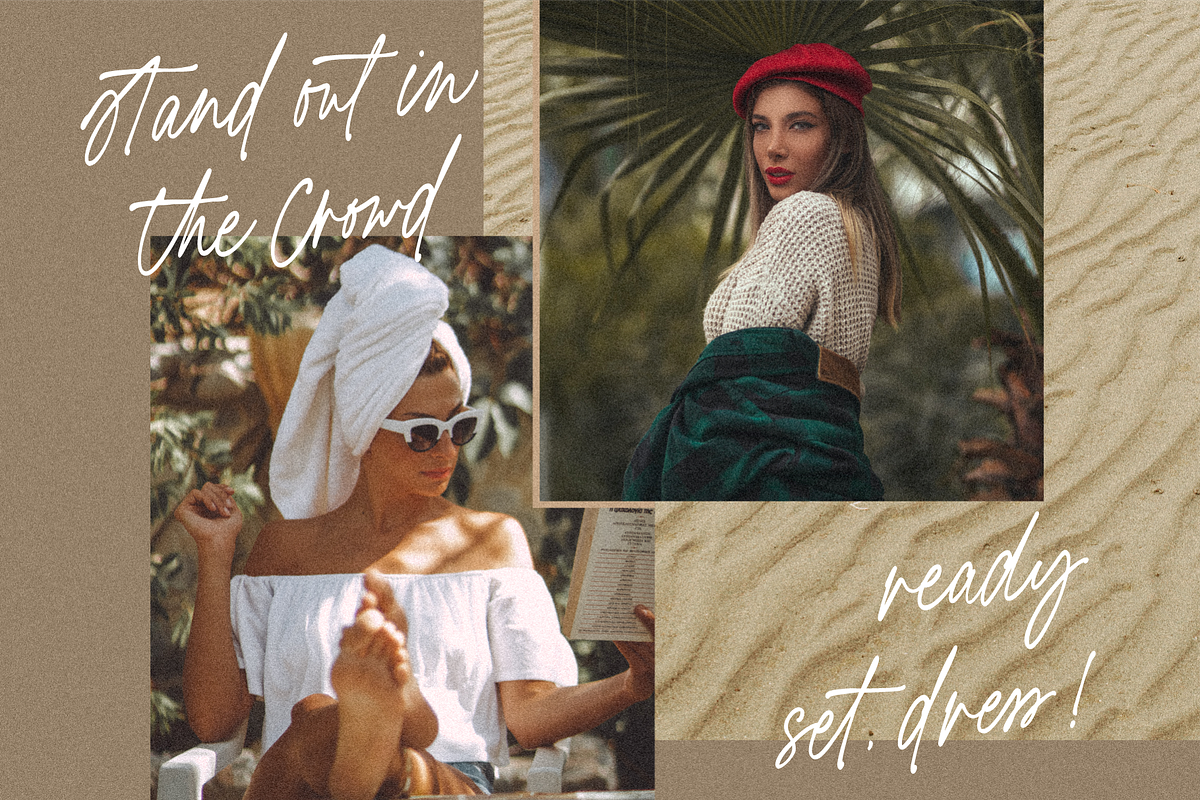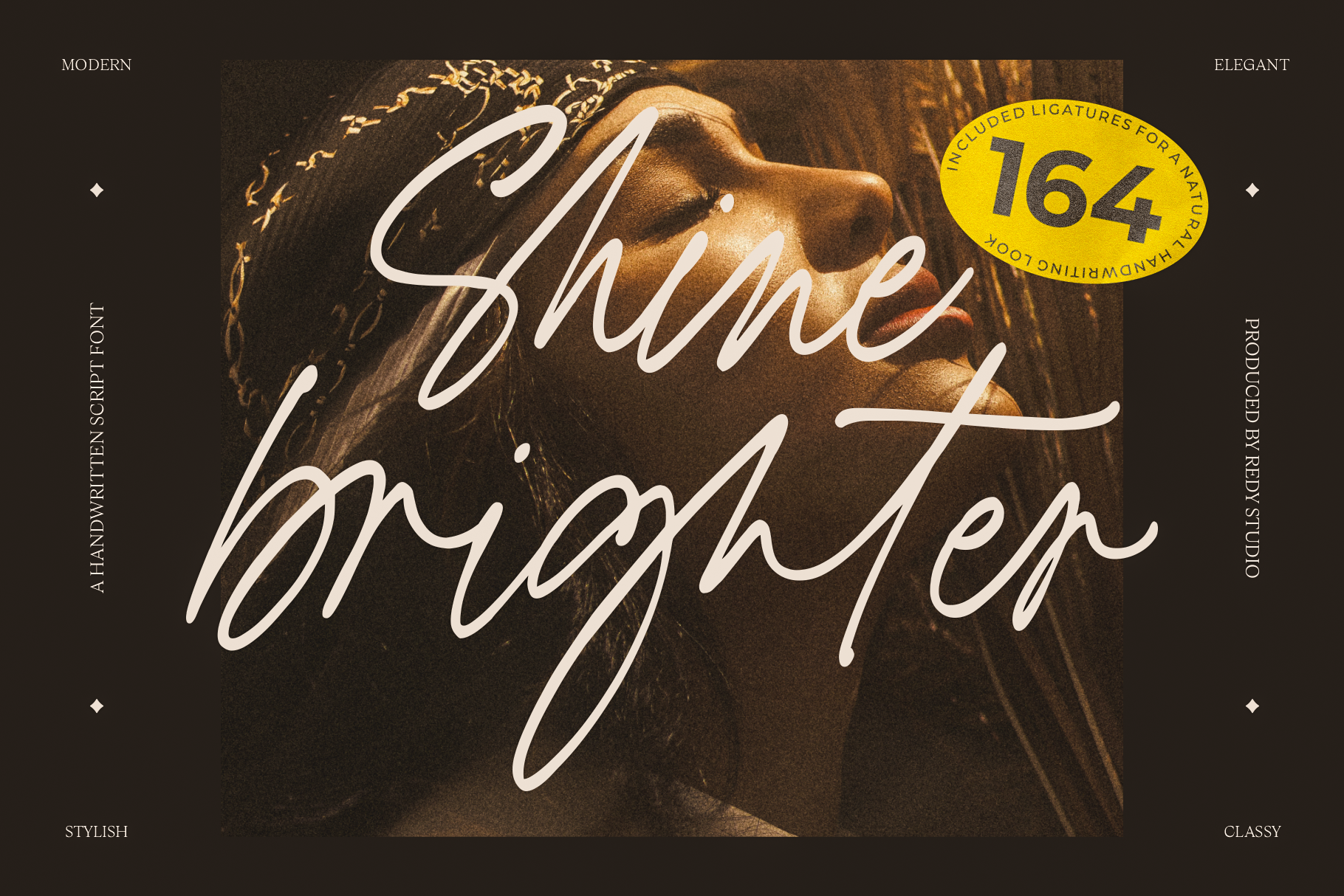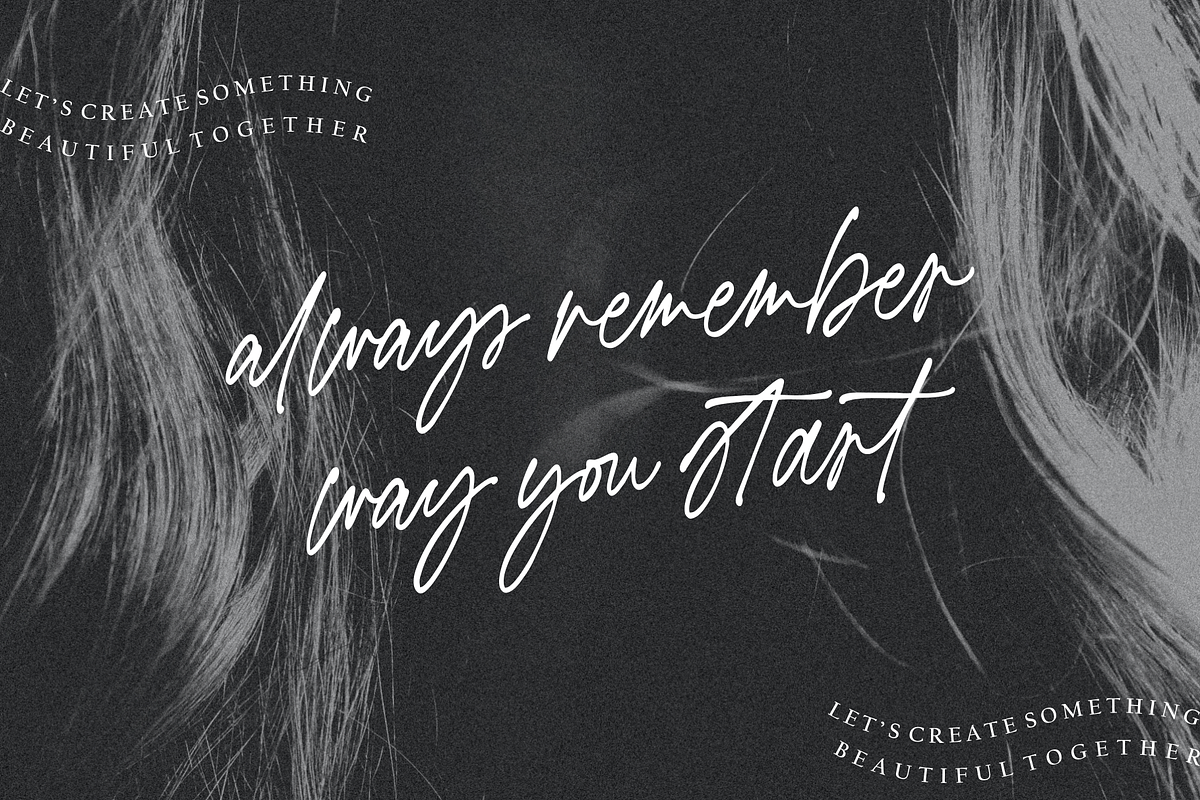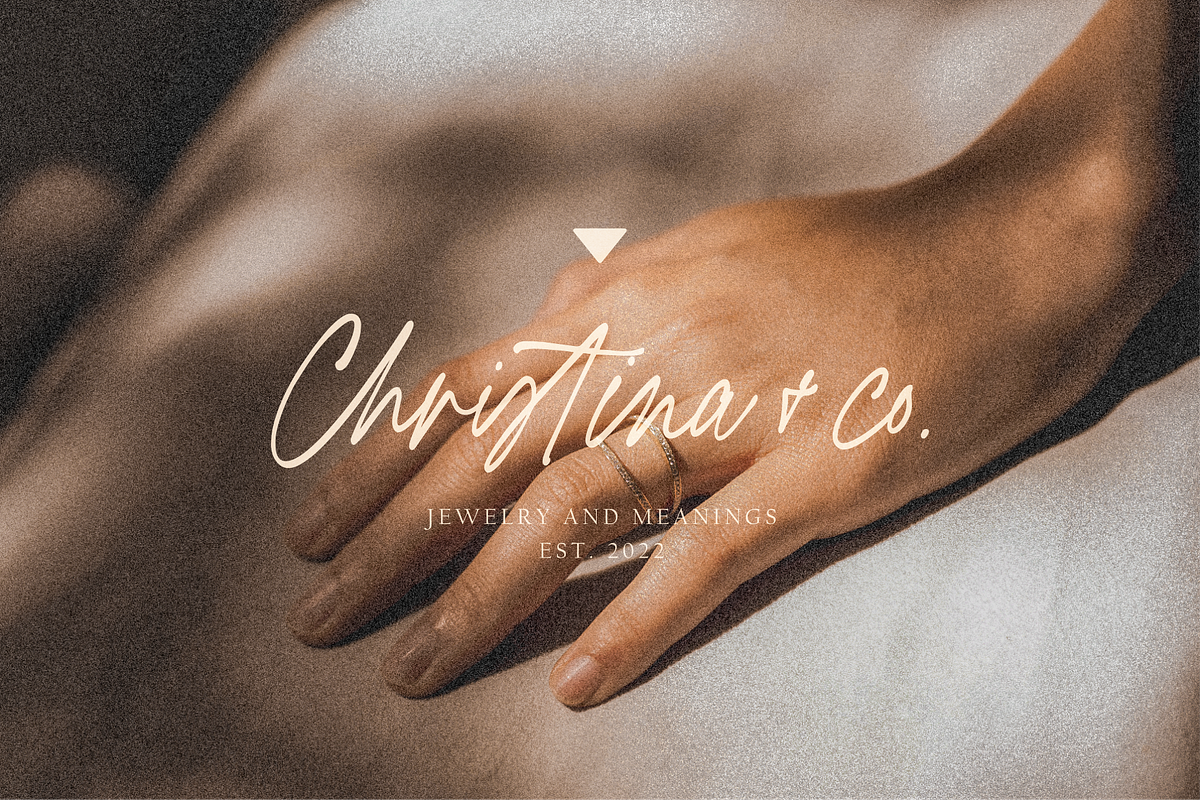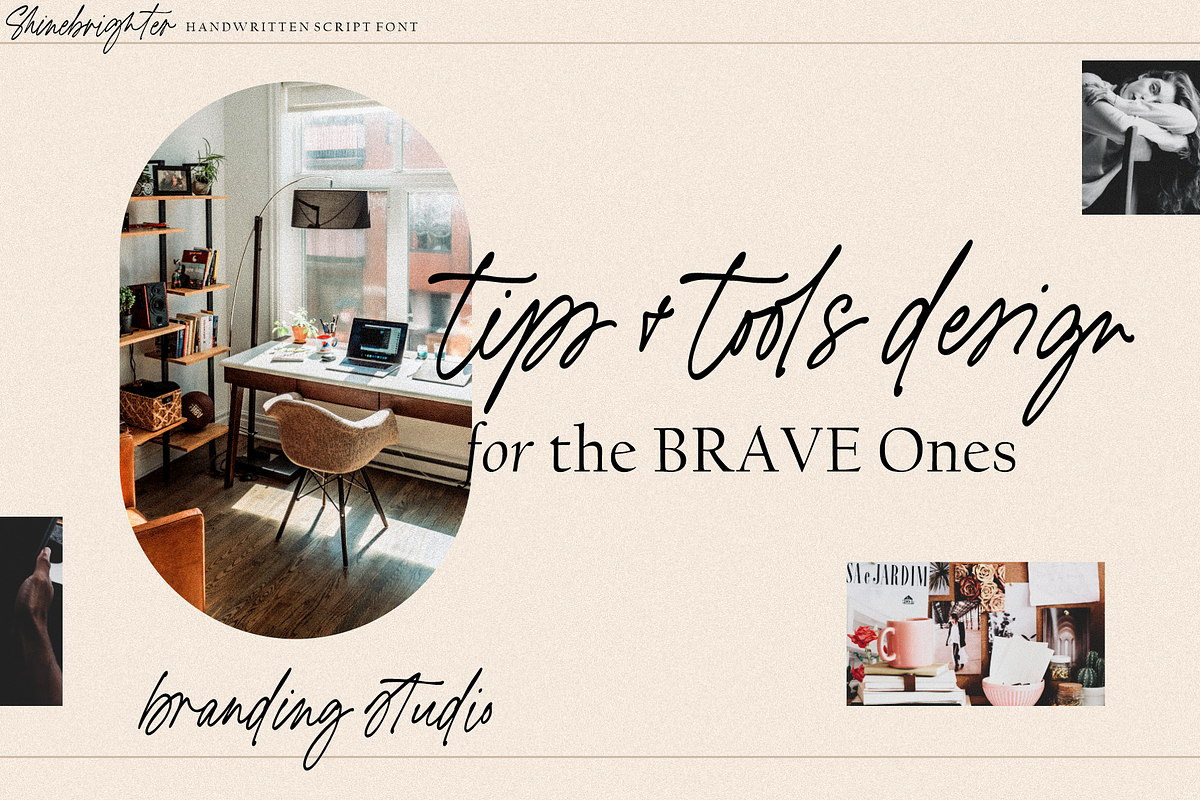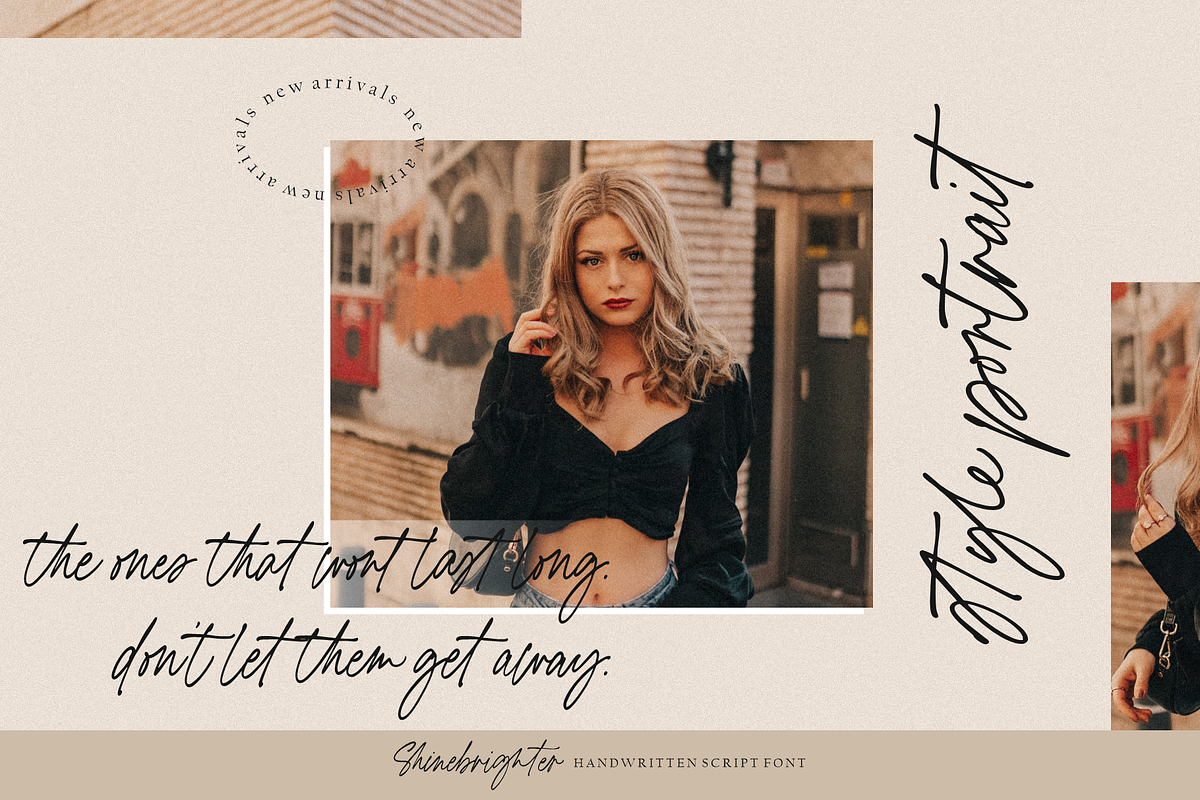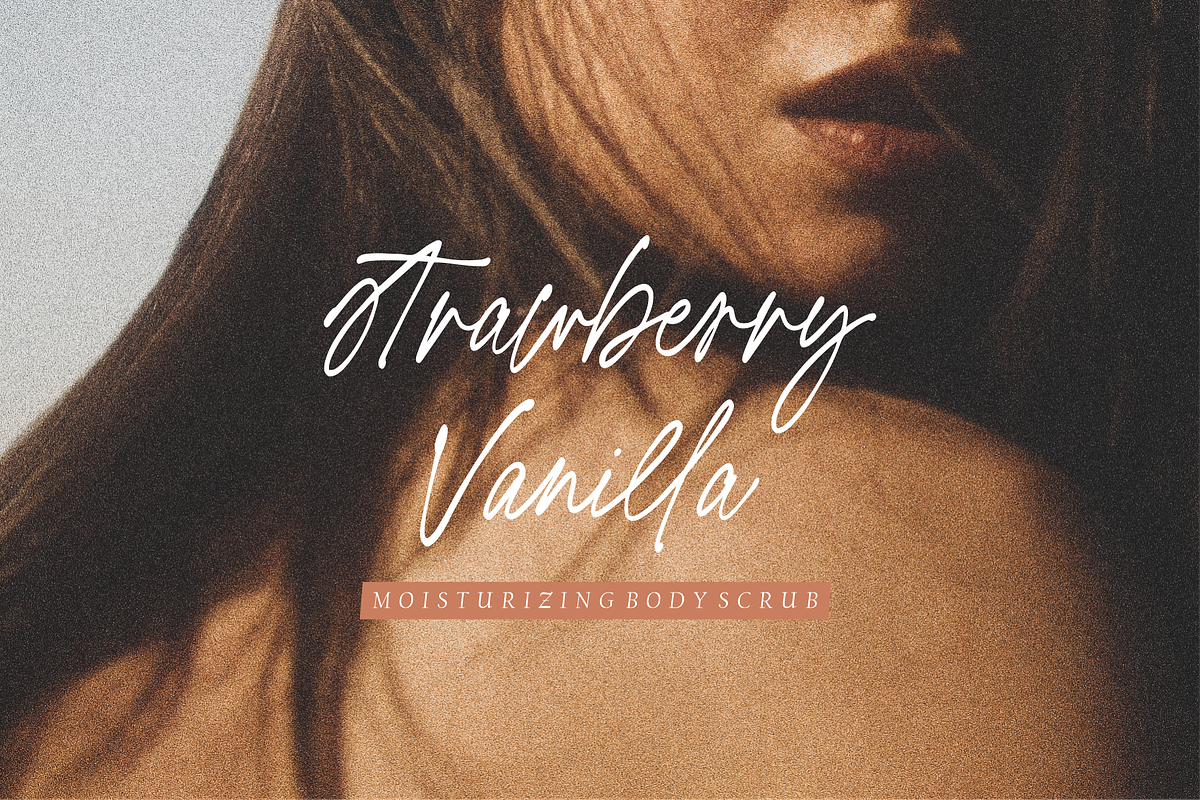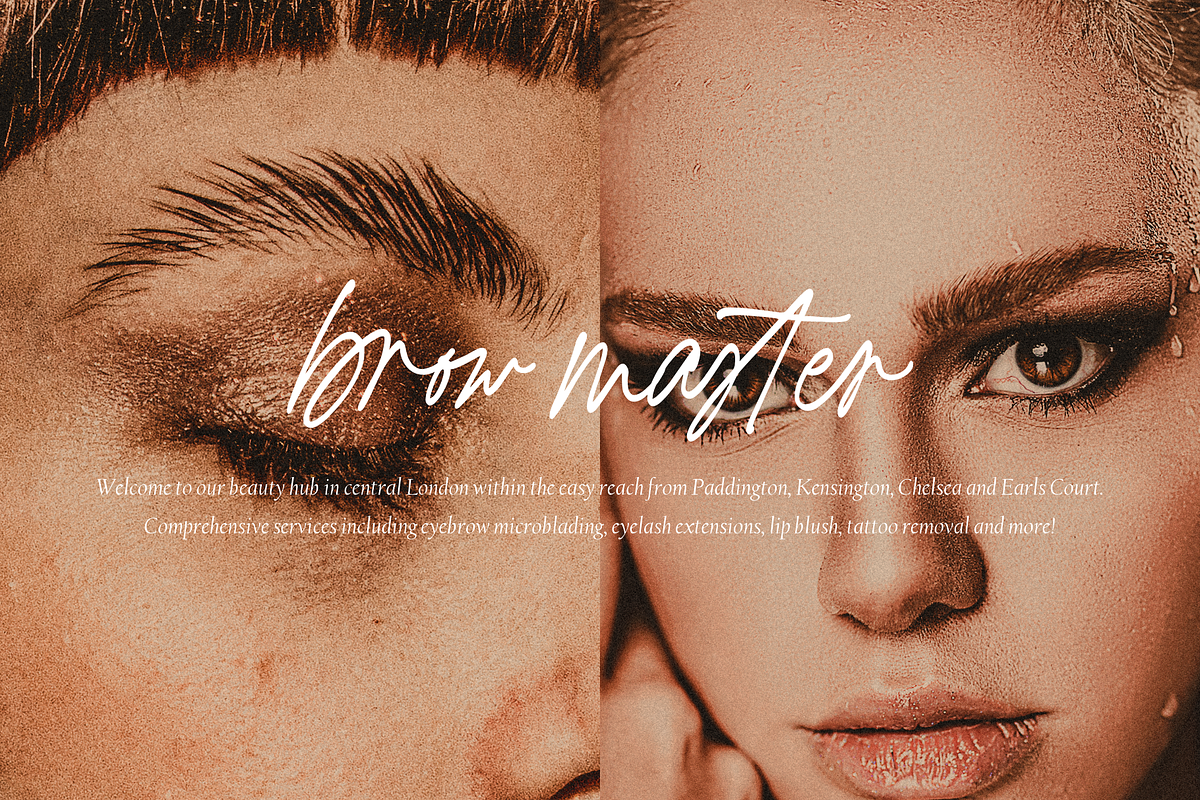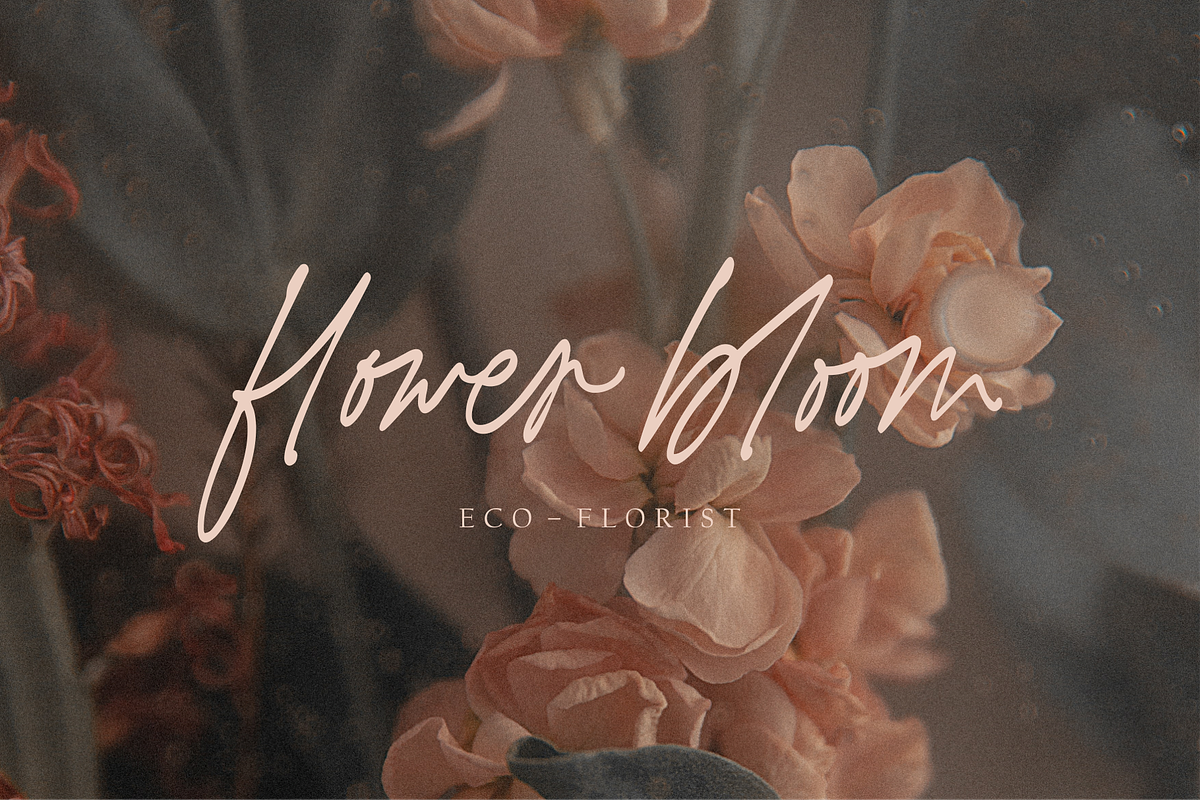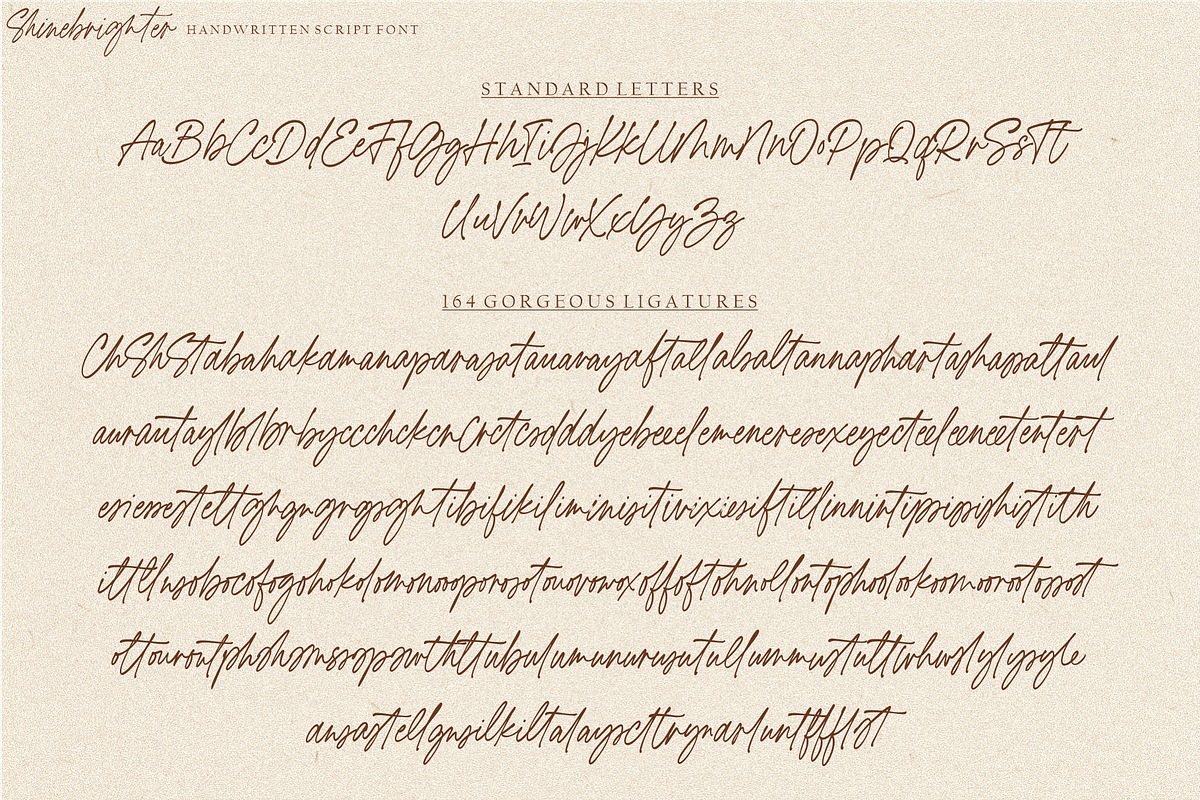
Shine brighter – Handwritten font
In today’s world, there are a million different fonts to choose from. Shine brighter font is the perfect choice for a handwritten design. You can use it for quotes on your blog, posters, and other marketing materials, or even wedding invitations. Shine brighter also includes 164 ligatures that will connect letters smoothly - helping to make the words flow more naturally. This font is perfect for leaving a lasting impression and making any design bit more special than usual.